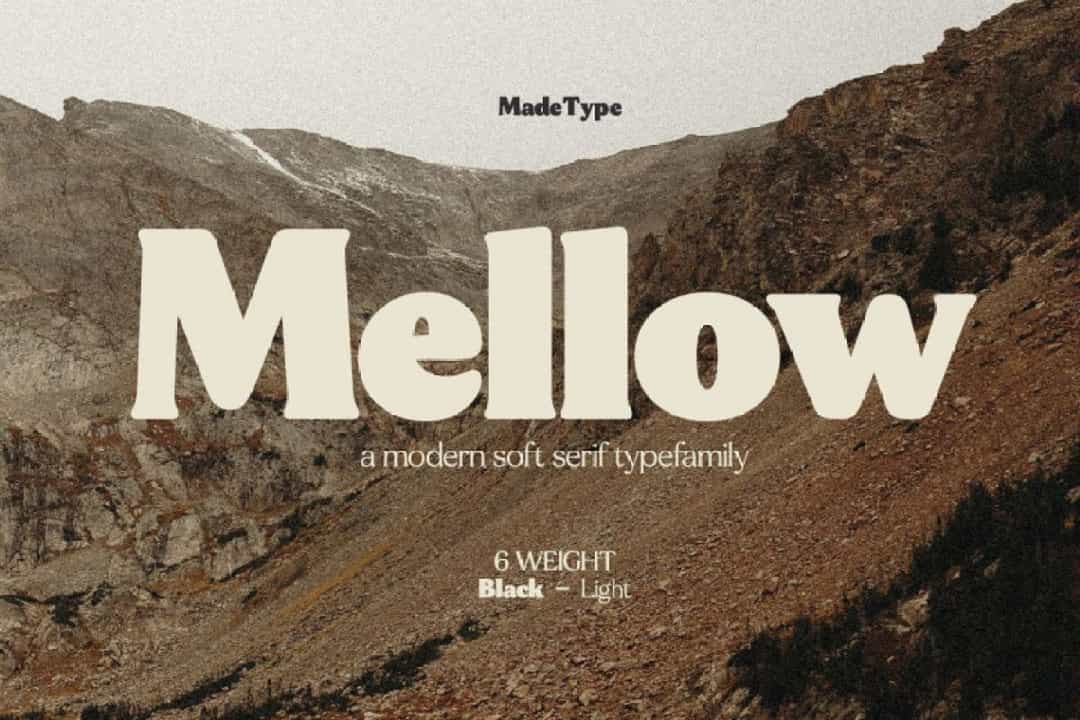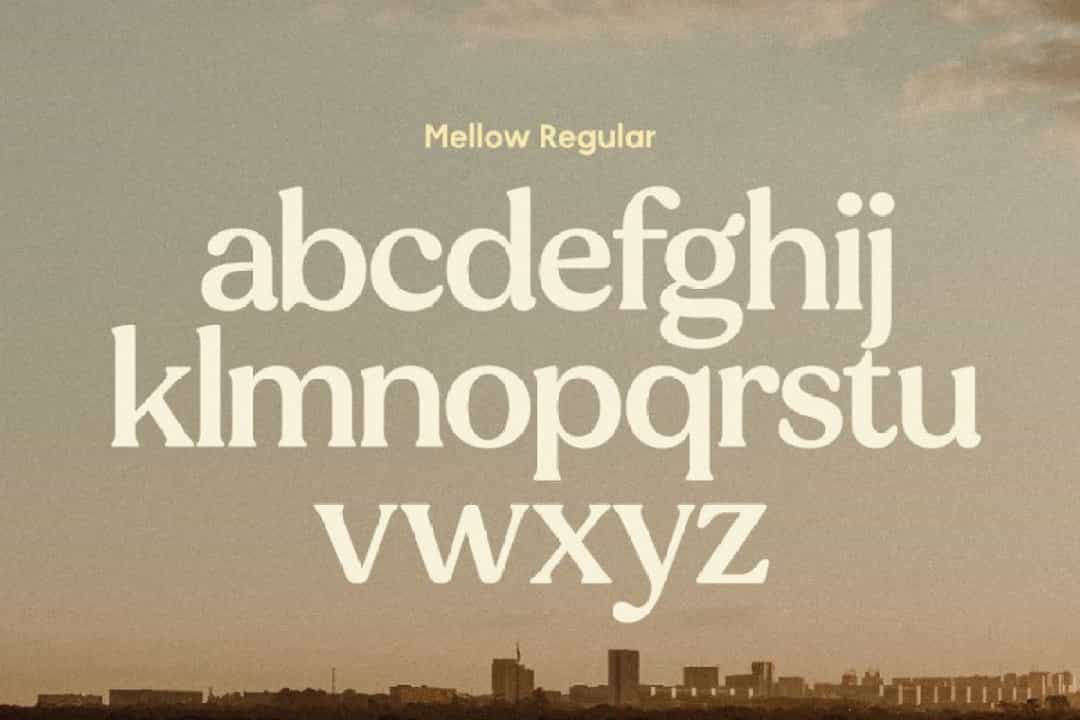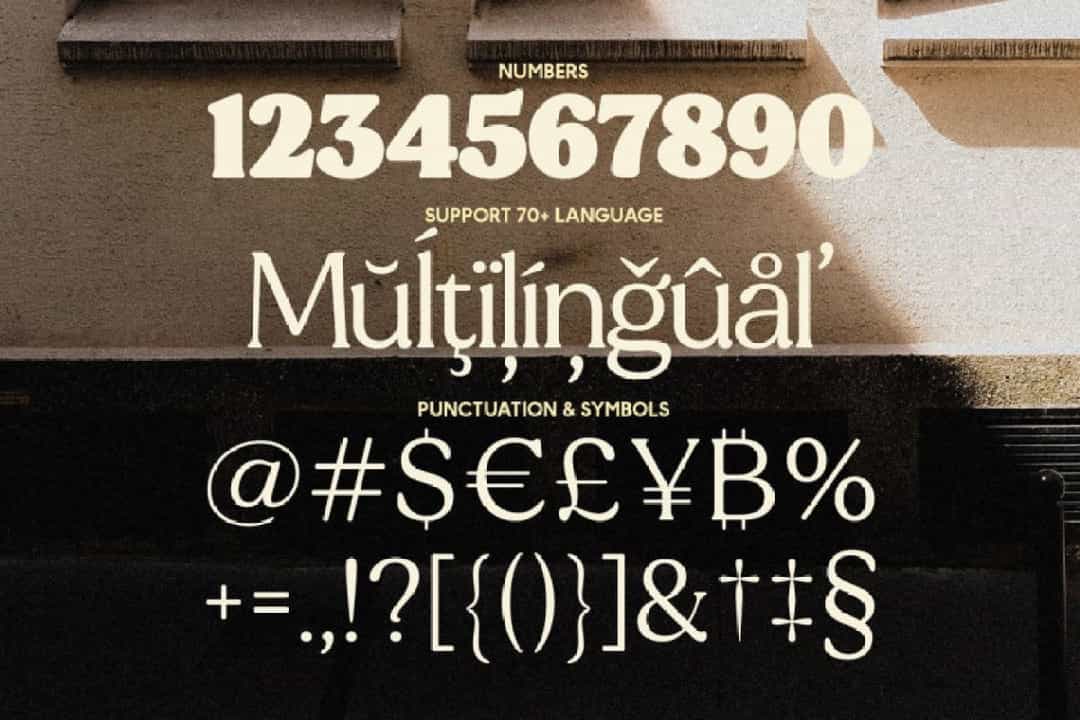
Are you in search of an elegant typeface to impress customers or clients? Look no further! Mellow is an eye-catching bold serif typeface, featuring graceful curves. Perfect for logo design, branding projects, header text posters and much more, Mellow will leave a lasting impression with customers or clients.